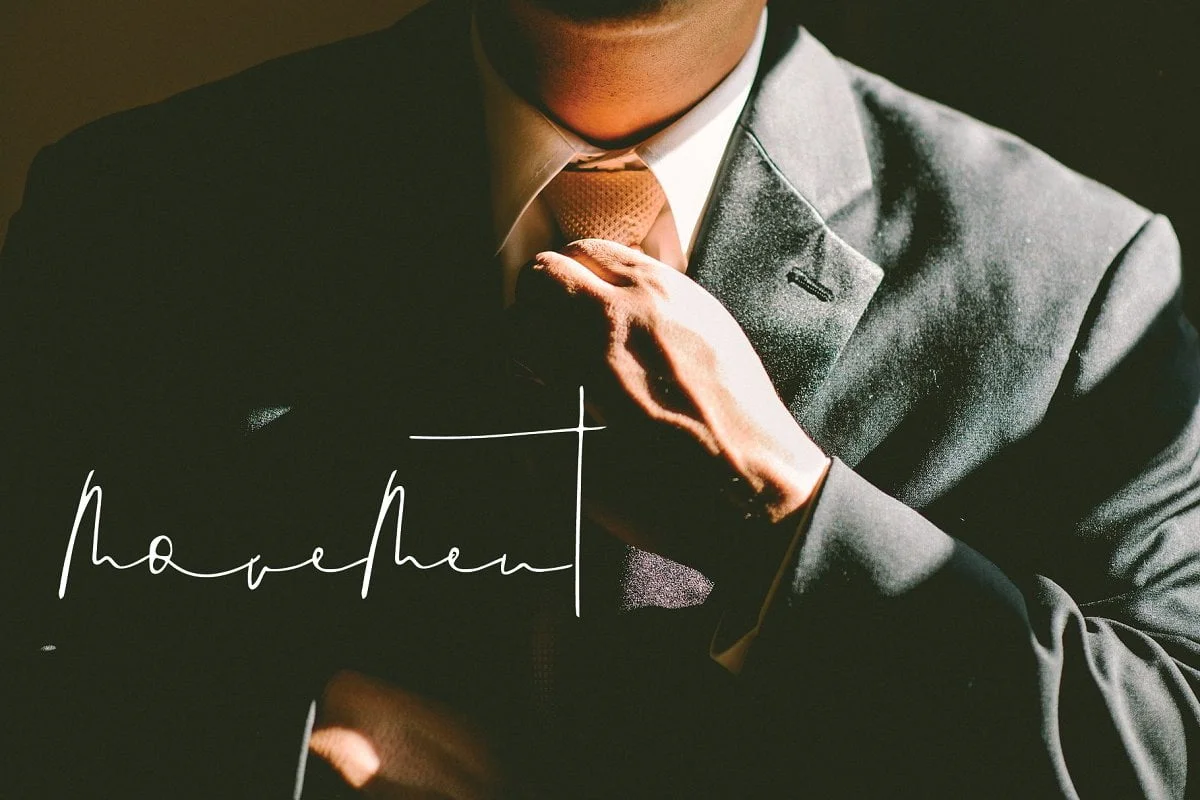
Signed Font
Signed Font is perfect for personal signature creation, authentic autograph designs, handwritten note graphics, personal branding projects, signature-style logos, intimate message designs, handcrafted product labels, personal letter headings, authentic testimonial quotes, and genuine personal communication materials.
Signed Font is exciting because it authentically replicates the intimate character and personal authenticity of genuine handwritten signatures through natural letterforms that convey trust, personal connection, and individual identity with authentic appeal. This personally crafted typeface combines signature authenticity with contemporary functionality, making it perfect for brands that want to communicate personal attention, genuine care, and authentic human touch that builds immediate trust.
The Signed Font family includes natural signature weights with handwritten character styling, featuring authentic pen stroke variations and personal flourishes. The font showcases genuine signature details, individually-crafted proportions, and personal character characteristics that create a comprehensive typographic system for authentic and personal brand applications.
Signed Font Free Download offers designers access to premium signature typography that brings authentic personal character to contemporary design projects. This carefully crafted typeface has been developed to preserve the genuine qualities of personal handwriting and signature authenticity while ensuring consistent performance in professional applications. The font's personal character and authentic appeal make it ideal for service providers and brands emphasizing individual relationships.
The signature sophistication of Signed Font makes it an invaluable tool for personal brands, service professionals, and authentic businesses that need typography capable of communicating genuine personal connection and individual attention. The font's handwritten character helps establish immediate trust and intimacy that resonates with clients seeking personal service, authentic relationships, and individualized attention from trusted professionals.
Personal trainers, consultants, and boutique service providers consistently choose Signed Font for its ability to convey authentic personal connection and signature professionalism through typography. The font excels in applications where establishing personal credibility and intimate brand relationships are essential to business success, making it particularly effective for personal services, consulting work, and individual professional brands targeting relationship-focused clients.
This font's comprehensive character set includes signature-styled letterforms, handwritten numerals, personal punctuation marks, and authentic symbols that support genuine signature typography composition. The consistent personal styling maintains the authentic signature theme throughout all characters while ensuring professional readability across all personal and authentic design projects requiring Signed Font Free Download functionality.